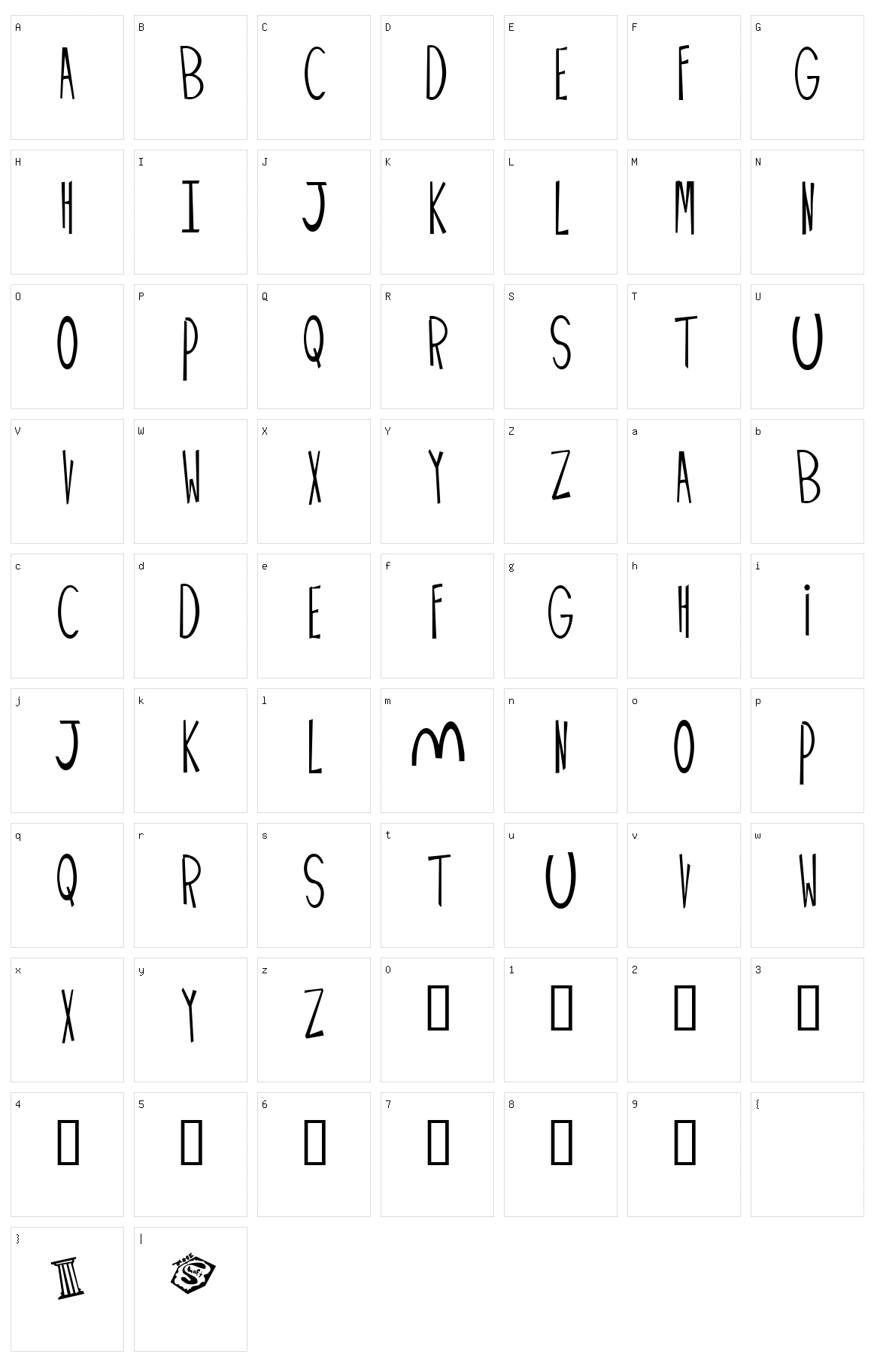
The free font Palimpus is carefully designed by Phillip Cavette, showcasing a thoughtful balance of creativity and usability and falls under the Cartoon font style. When you download the ZIP file, it contains only 6.56 KB of font files, making it lightweight and quick to download. Please review the license details below to understand permitted usage and distribution rights. If license information is not available, we recommend using this font for personal projects only or contacting the author directly for commercial usage permissions.